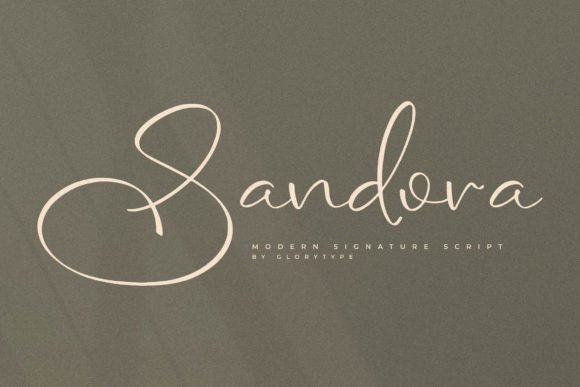
Step into the world of elegance and charm with Sandora Font, the captivating script font that will transform your creative projects into masterpieces. Its graceful curves and stylish swashes will add a touch of sophistication to any design, making it the perfect choice for logos, branding, posters, and more.
Indulge in the versatility of Sandora Font, seamlessly adapting to a wide range of projects. Its timeless beauty enhances homeware designs, adds a personal touch to product packaging, and brings life to quotes and posters. Envision your name cards, invitation cards, and greeting cards adorned with Sandora's delicate strokes, leaving a lasting impression on recipients.
Experience the magic of Sandora Font in photography, where it effortlessly elevates special moments, capturing emotions and adding a touch of artistic flair. Personalize your watermarks, creating a unique signature that showcases your creativity. Sandora Font is the perfect companion for special events, adding a touch of elegance to invitations, menus, and programs.
With Sandora Font, the possibilities are endless. Its beauty knows no bounds, captivating audiences and leaving a lasting impression. Let your imagination soar as you explore the endless creative opportunities that await.